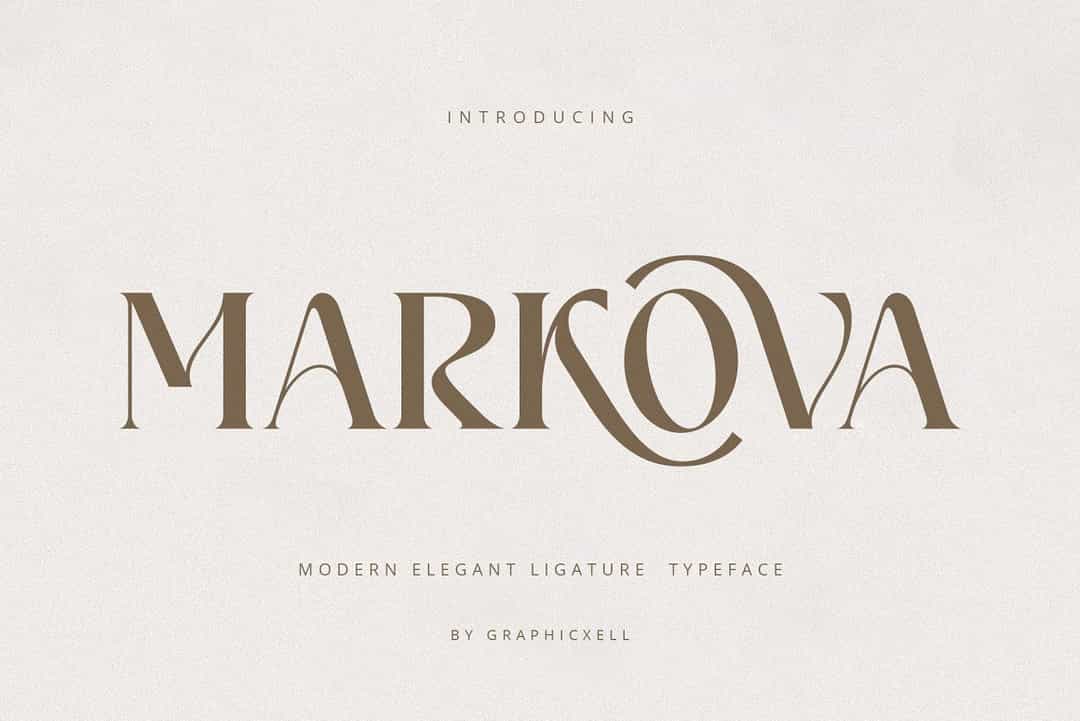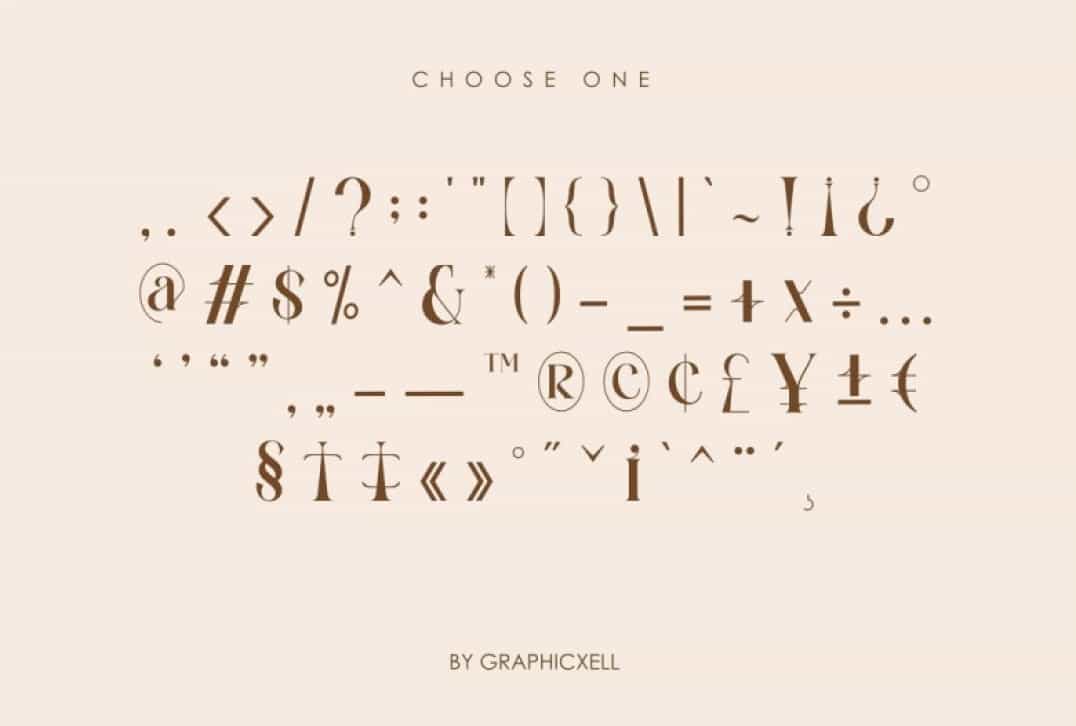
Markova Serif Typeface was inspired by the minimalist logo and is perfect for designing brochures, templates videos advertisements branding logos templates and more.